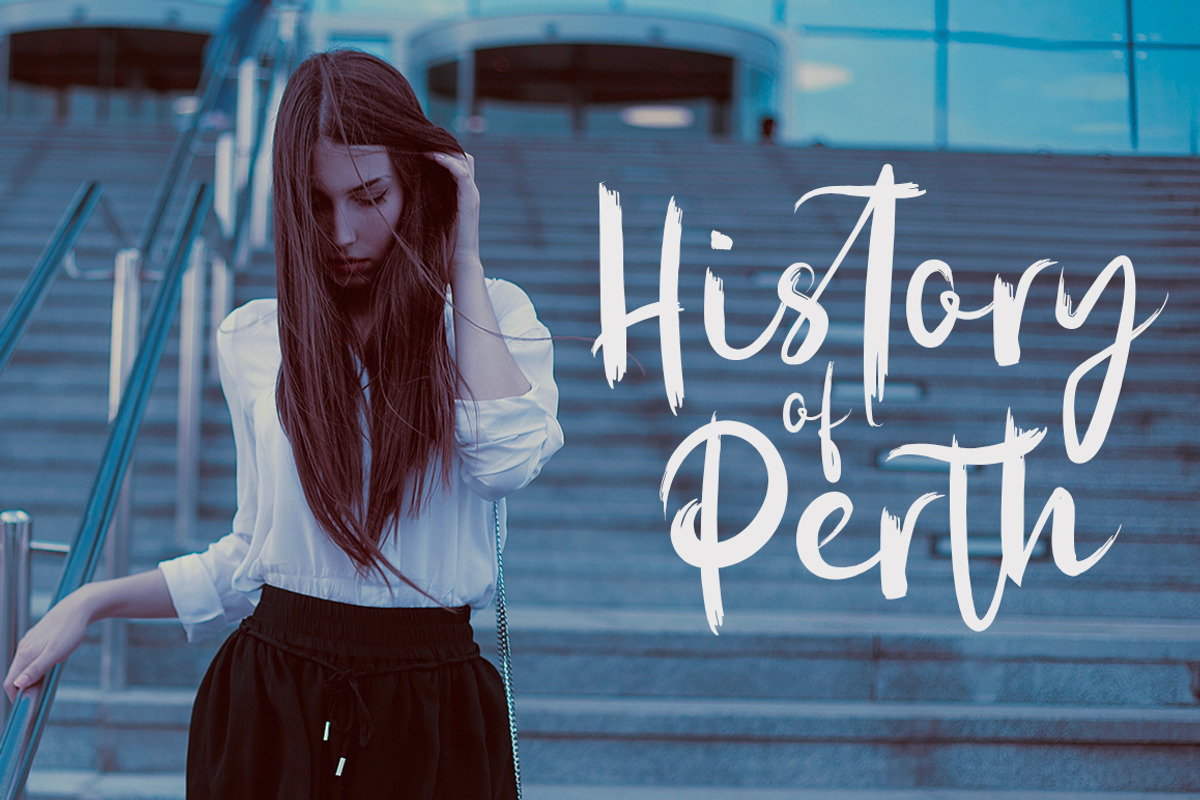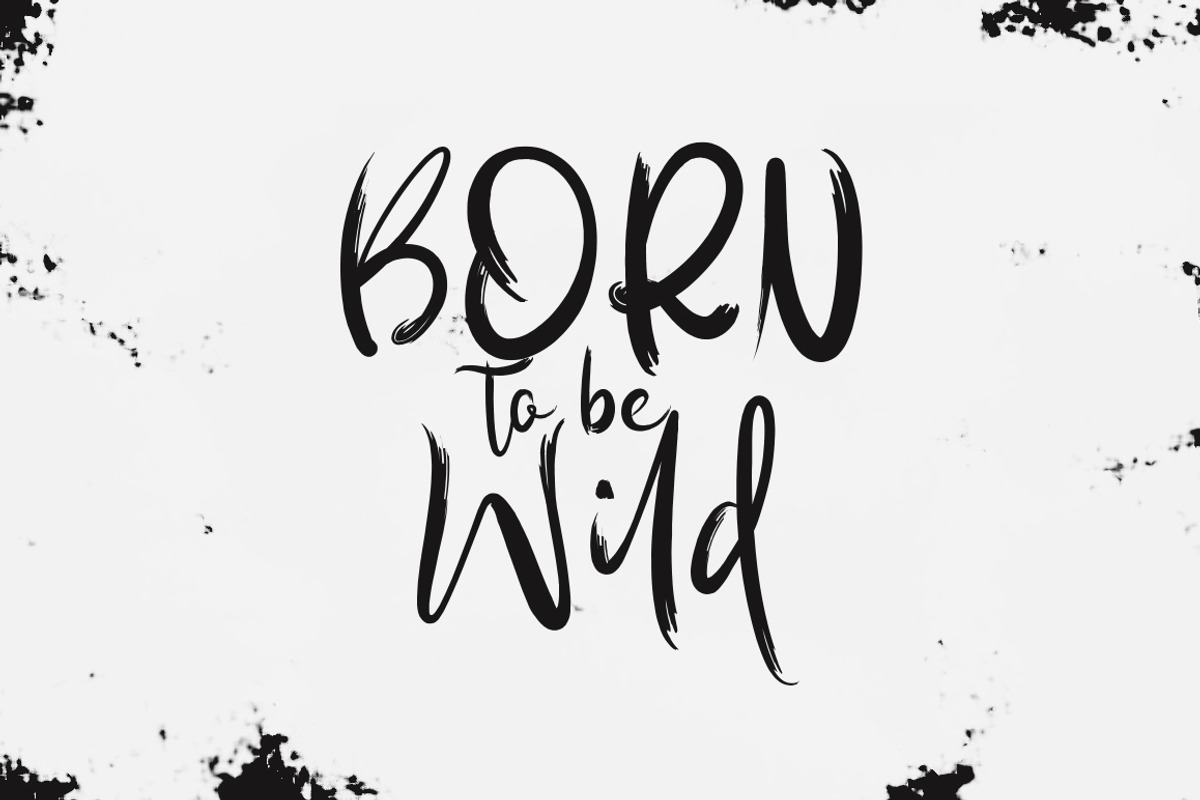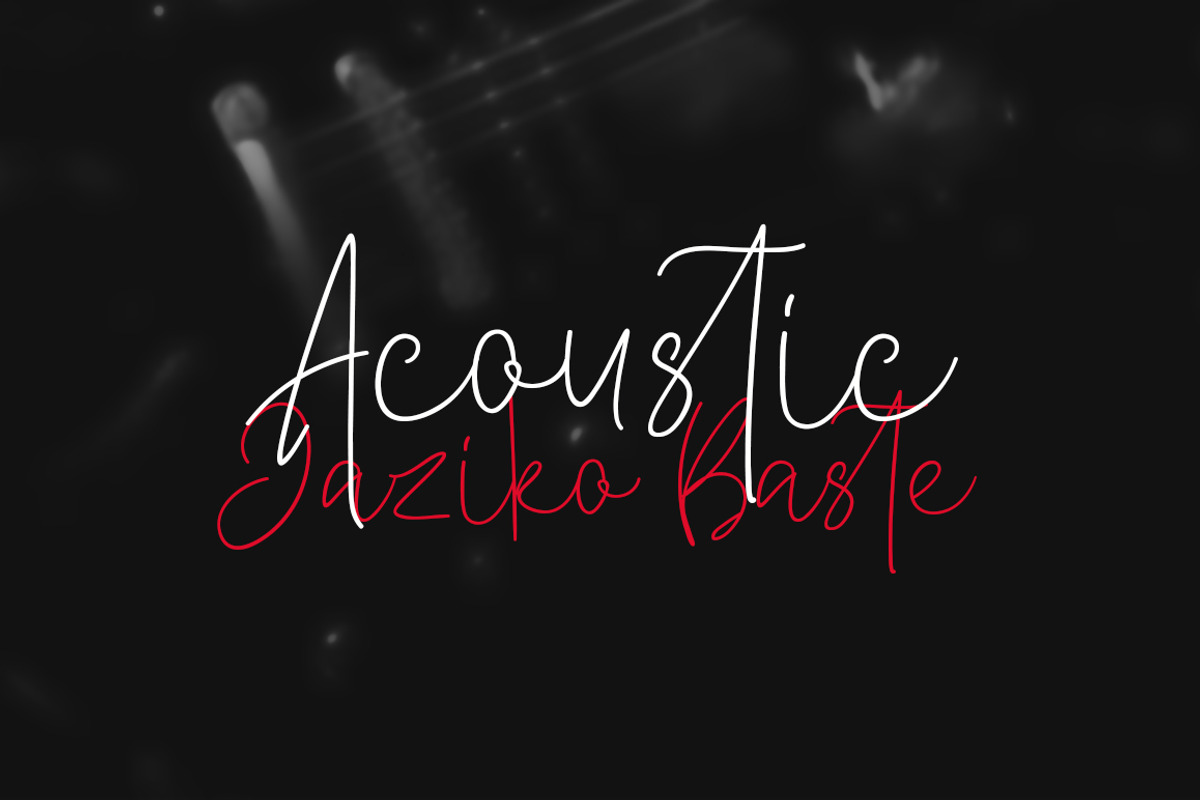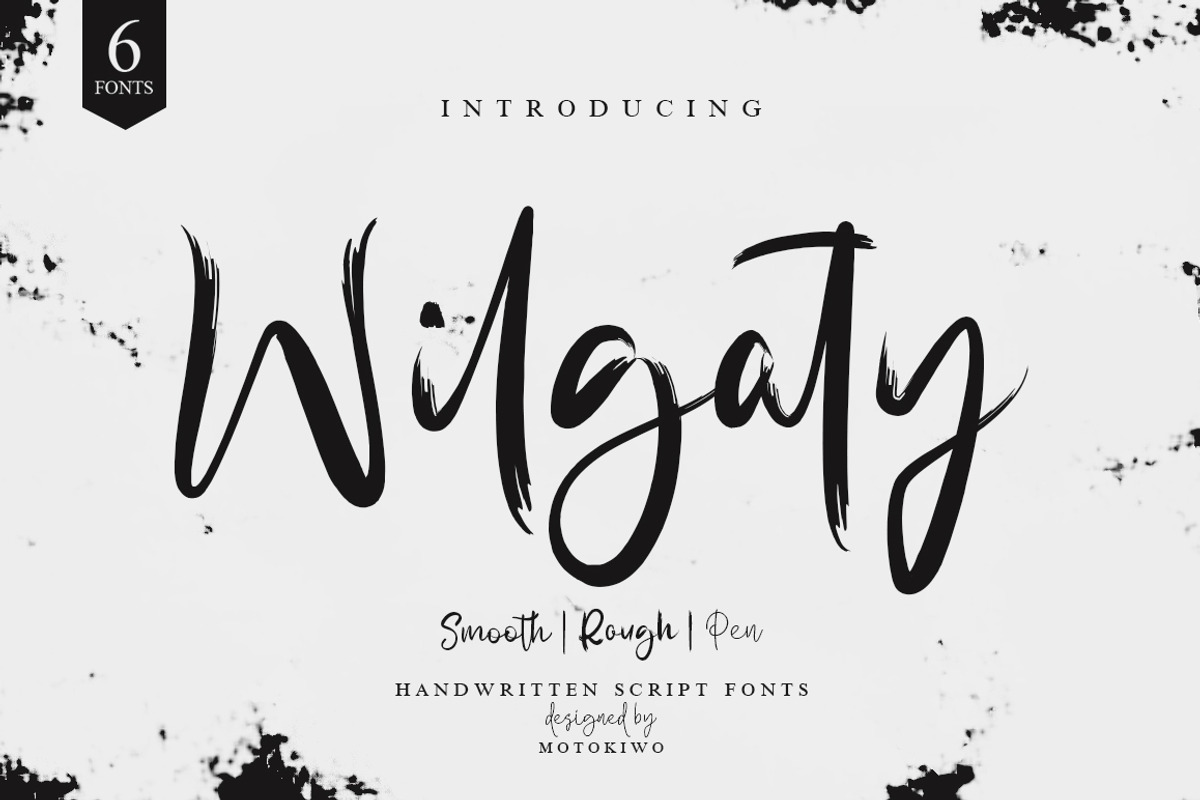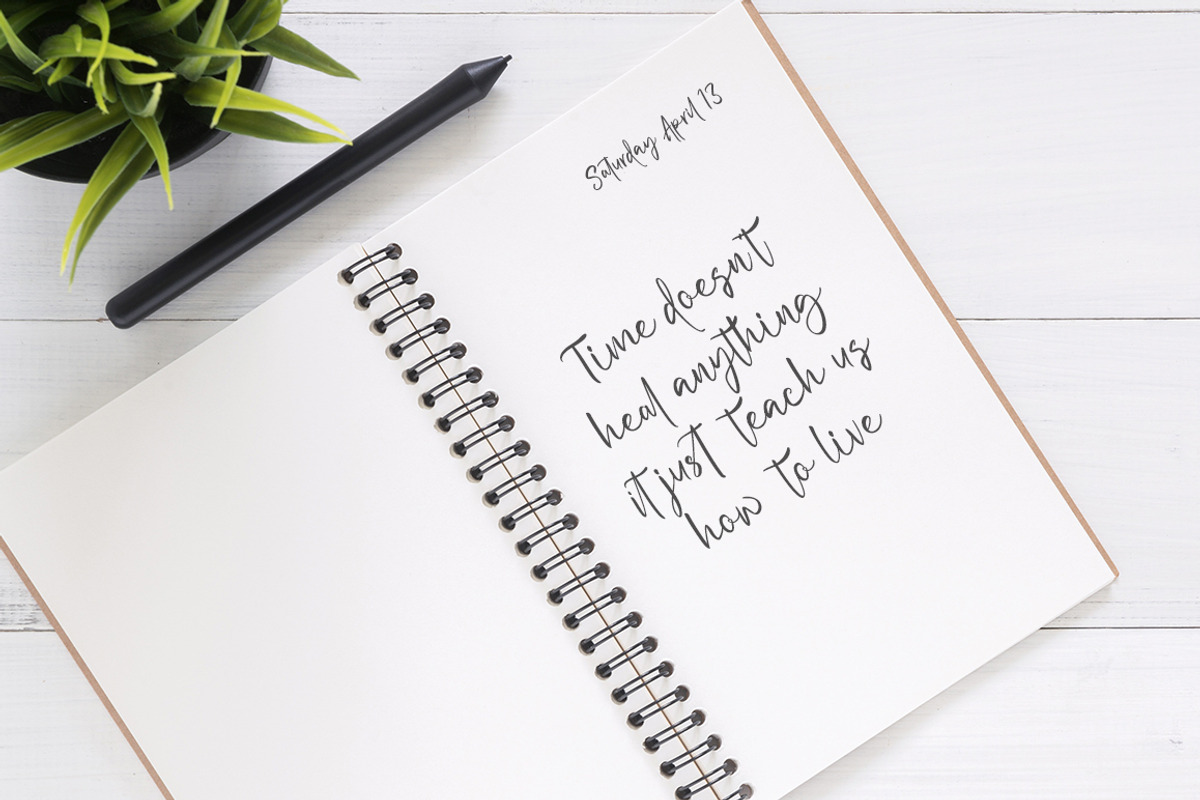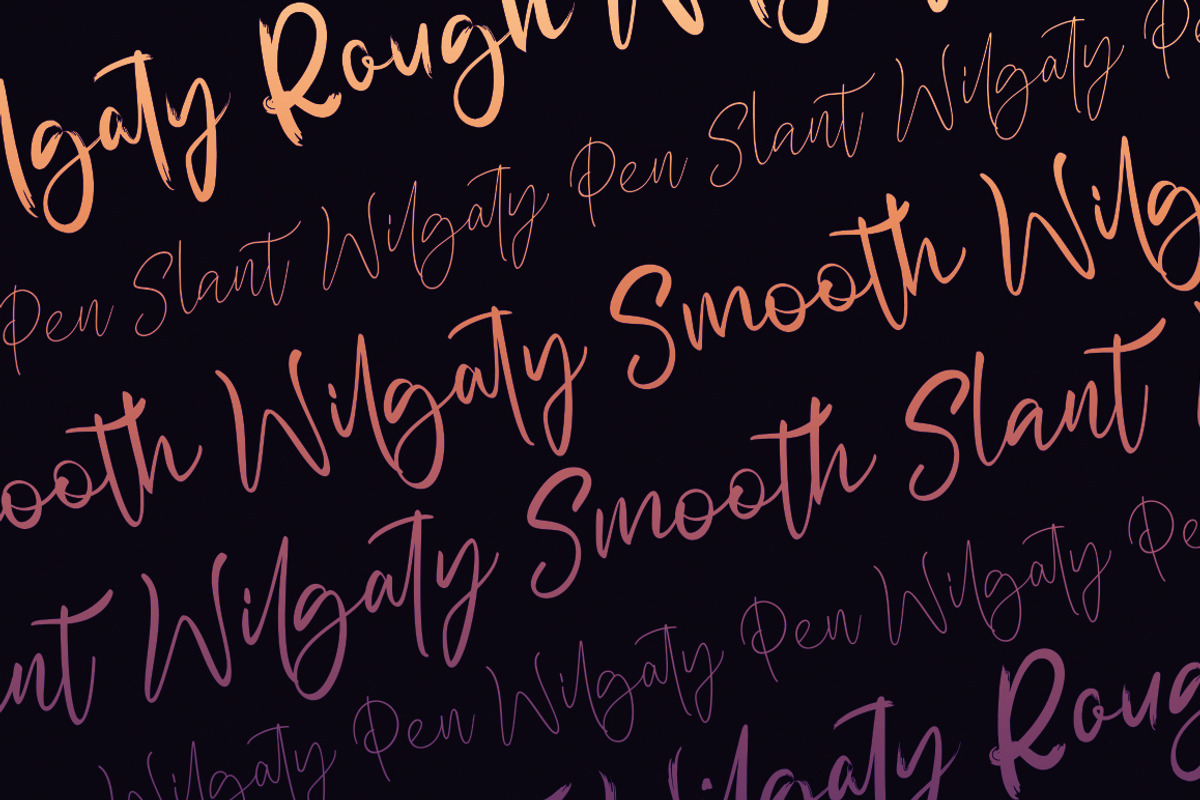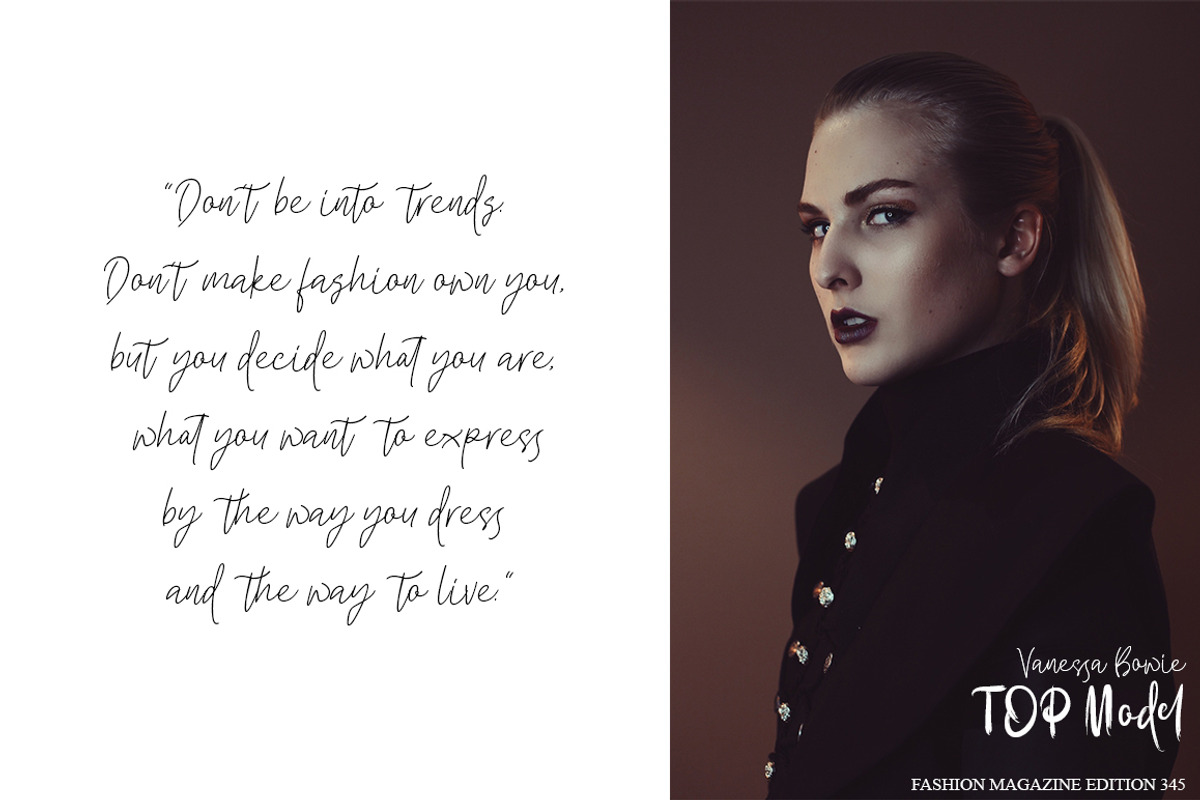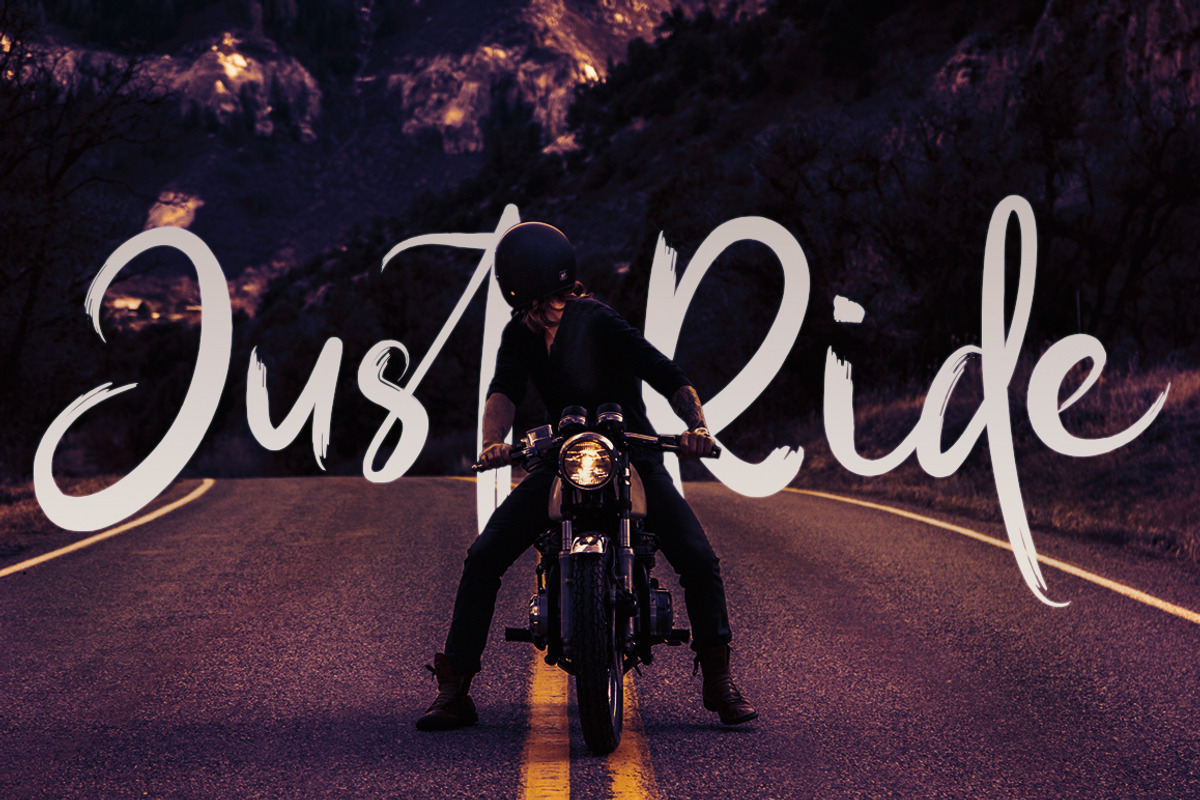
Wilgaty - 3 Stroke Edition (6 Fonts)
Wilgaty is handwritten script font with 3 stroke variants. It's best choice to use the same writing style with different stroke style. Wilgaty suitable for large range of design project, just simply choose the stroke style that match with your project.
All font have Ligatures: aa ll bb cc dd ee ff gg mm nn oo pp ff rr ss st tt ttl lt alt ilt ult elt olt att itt ott ett all ill il al ul ol el at it et ot